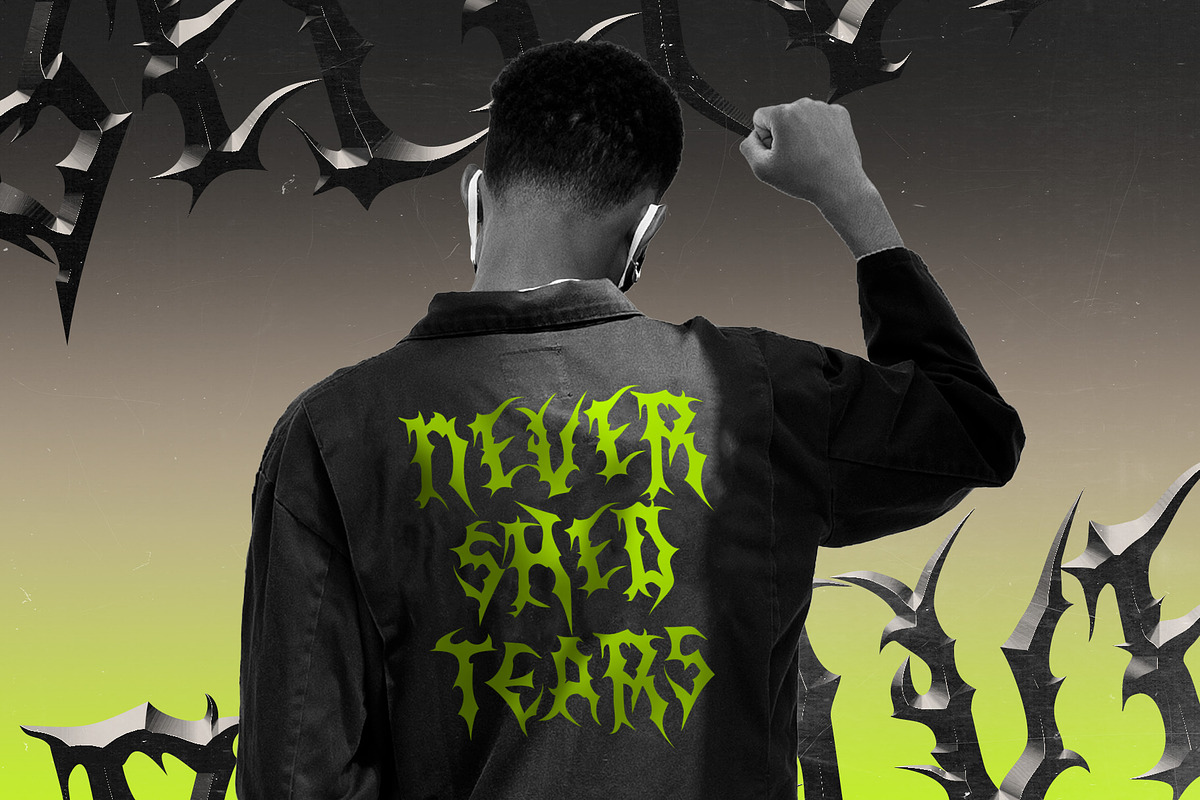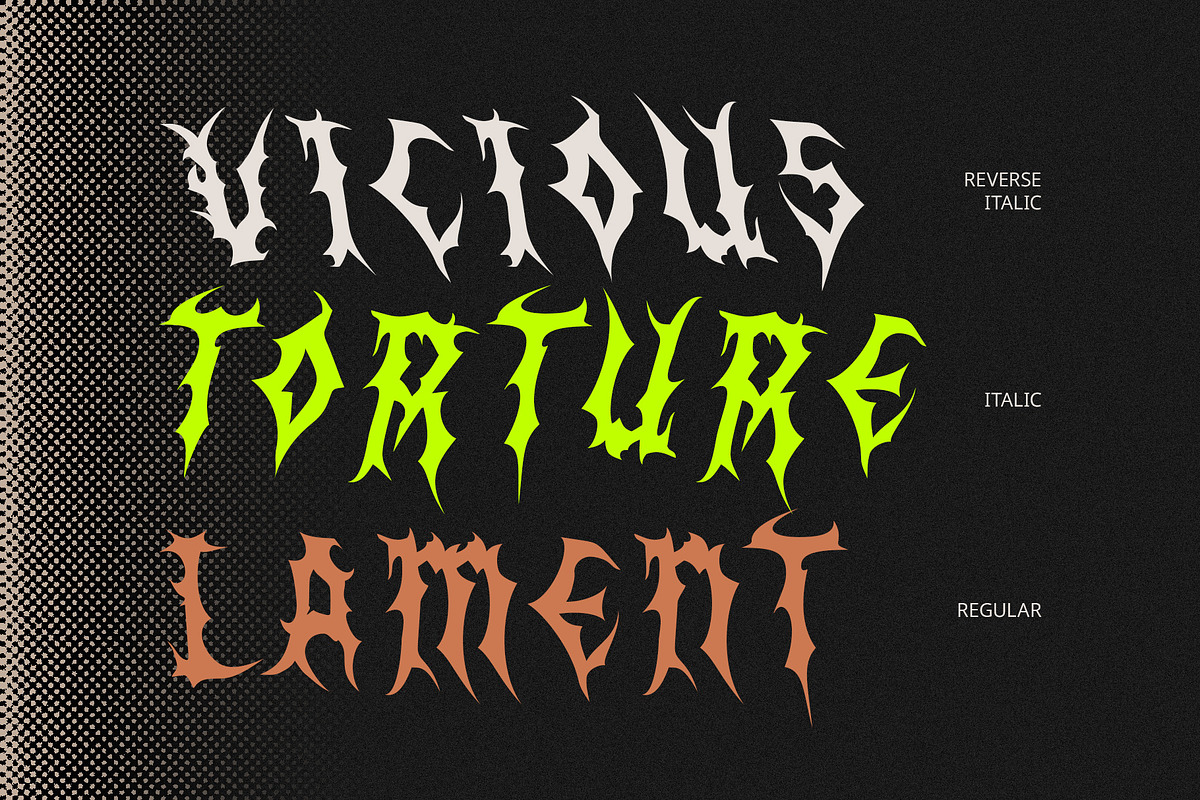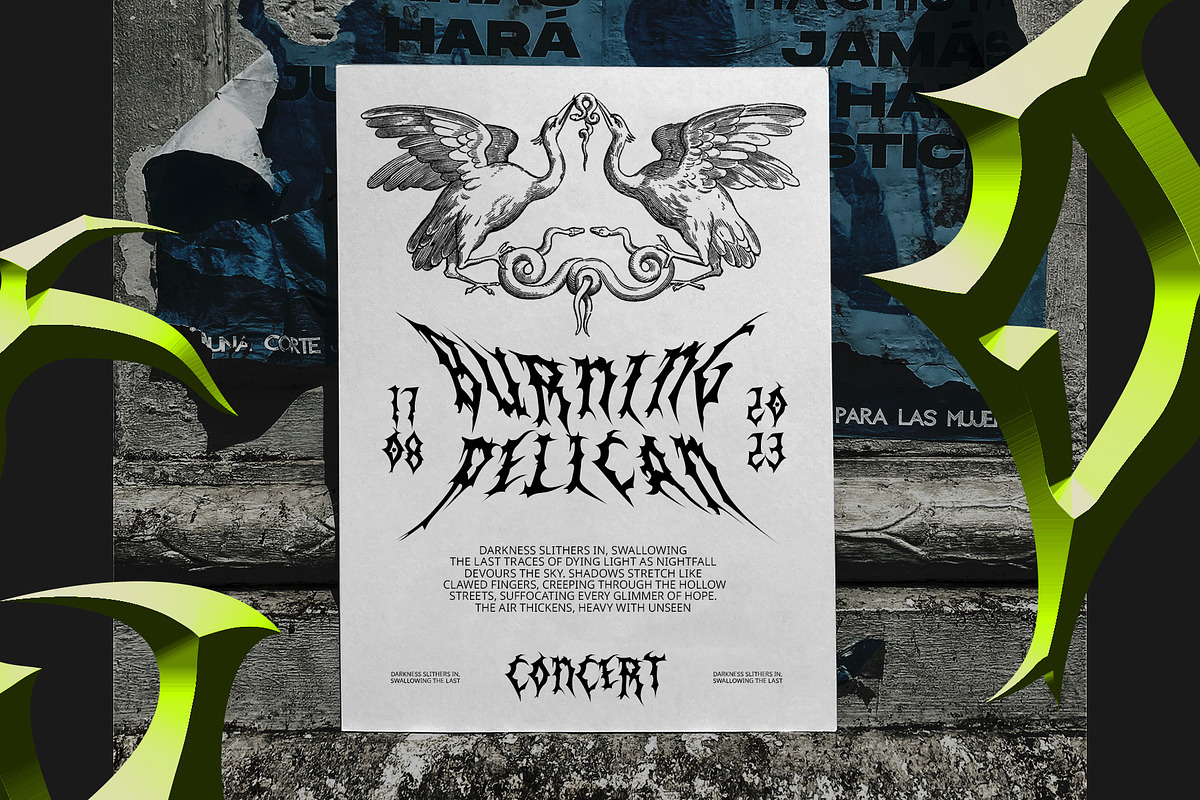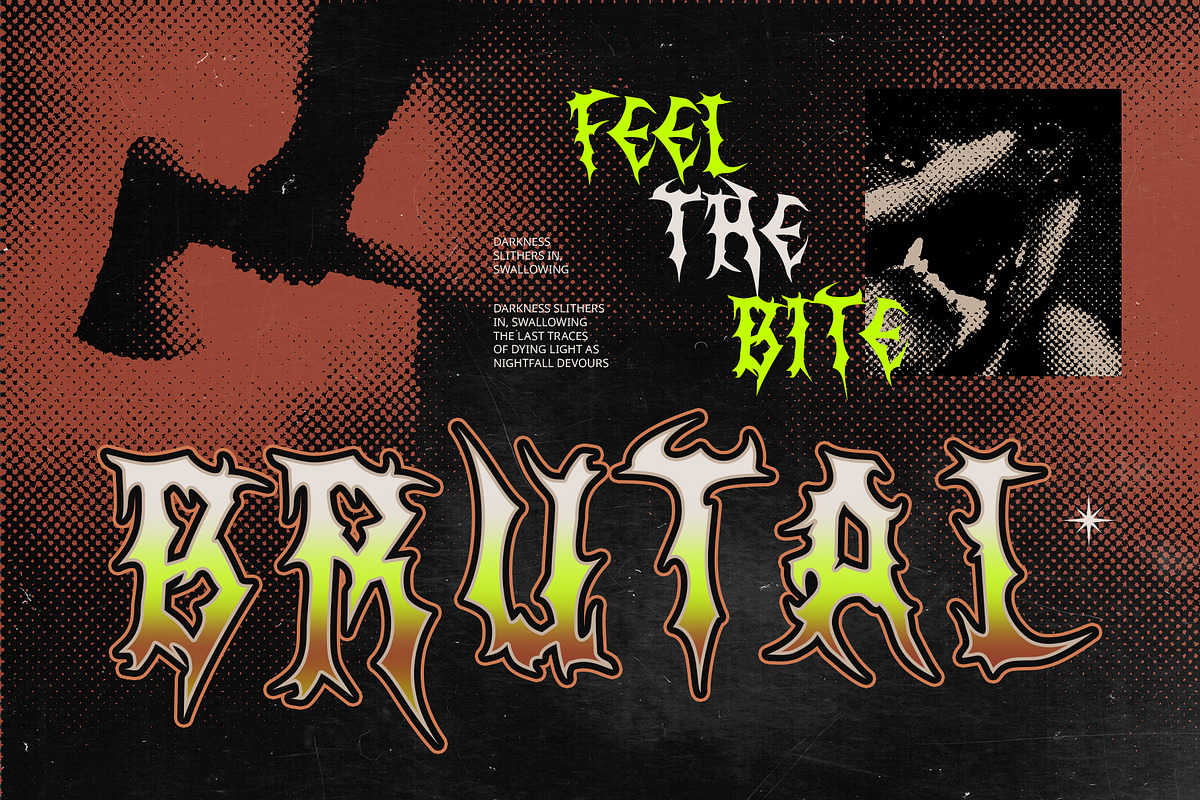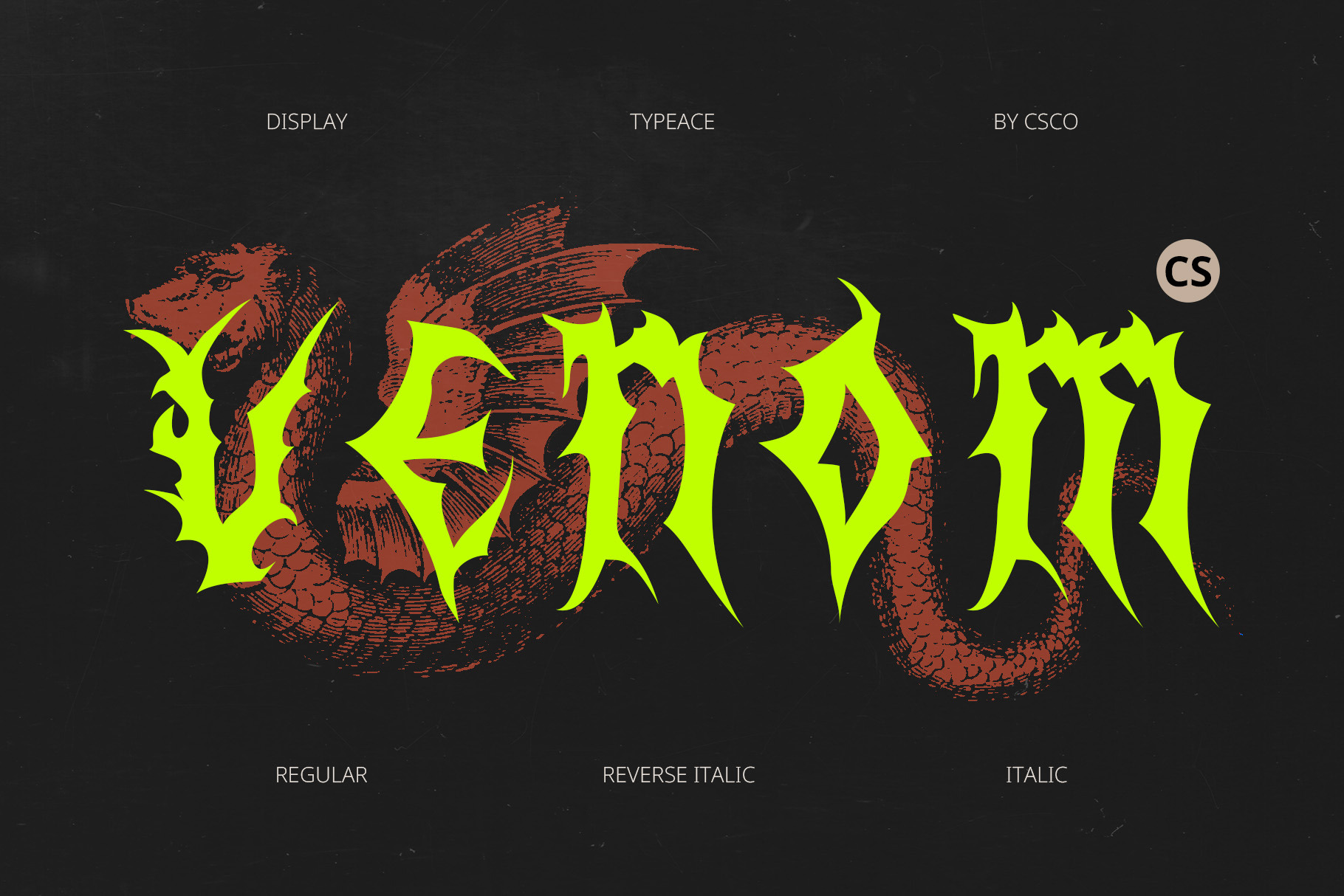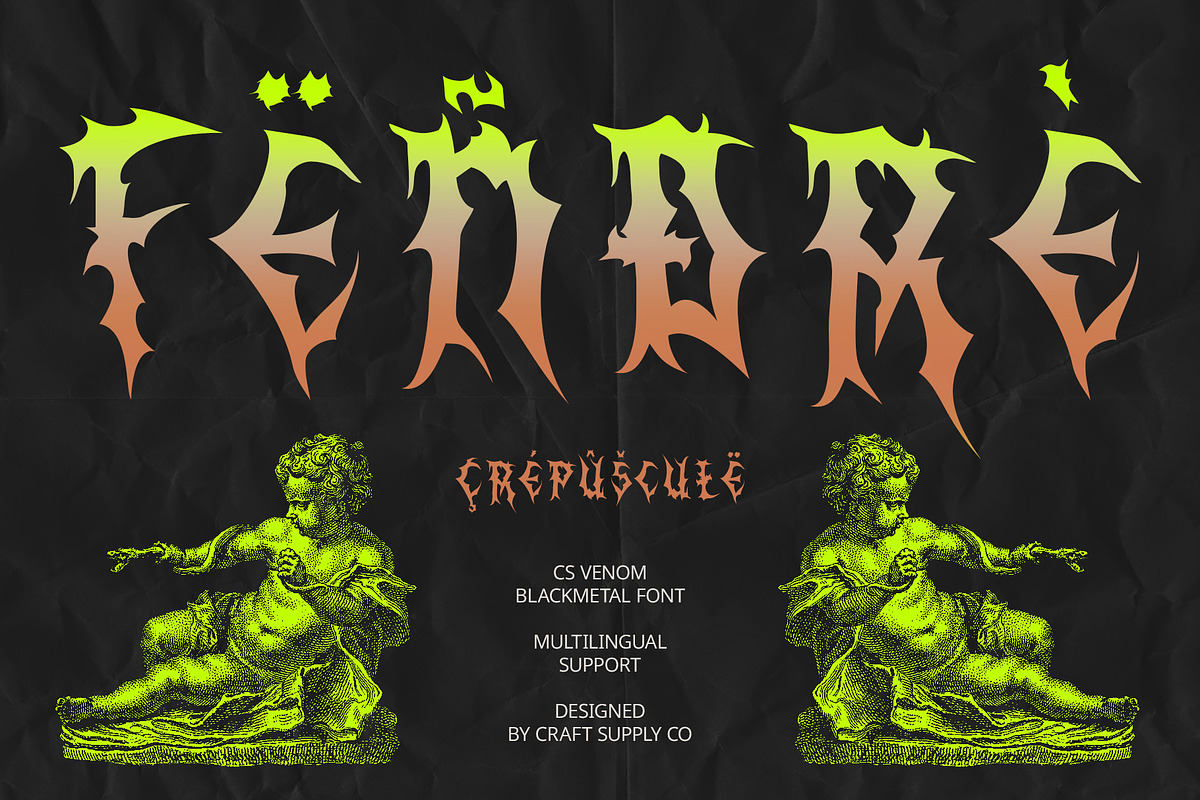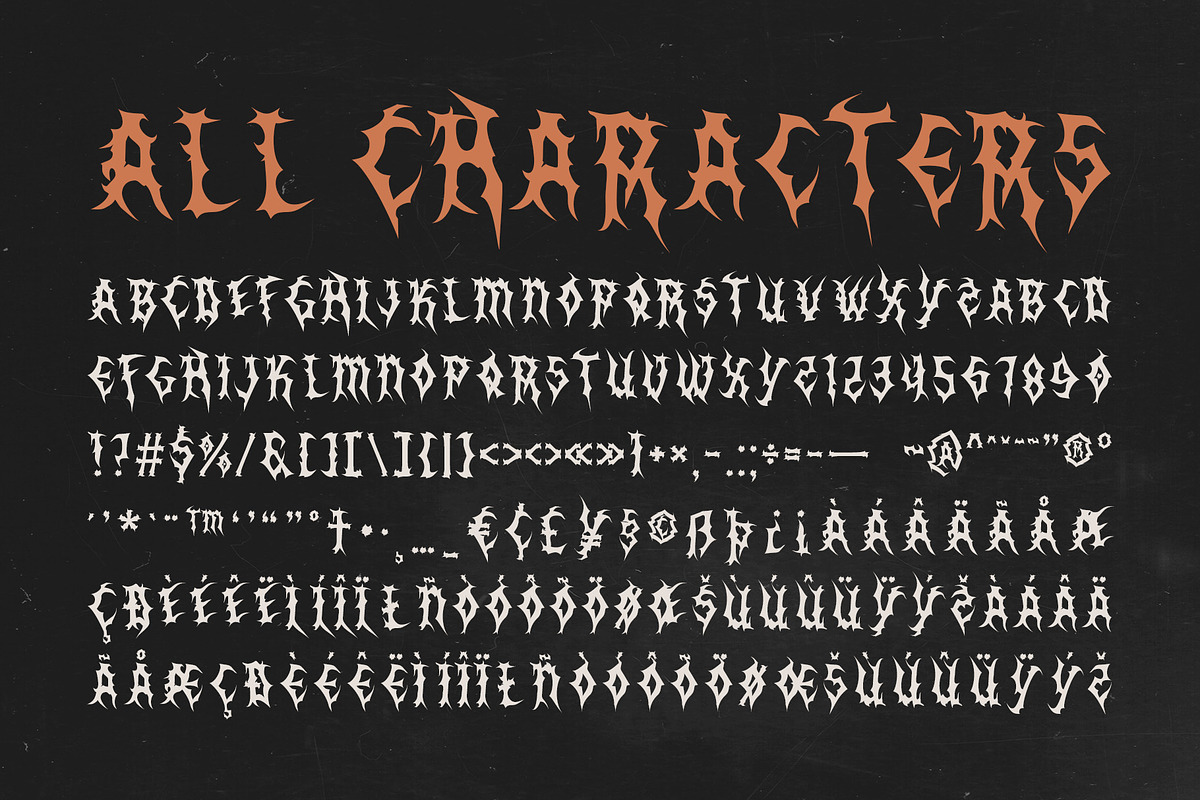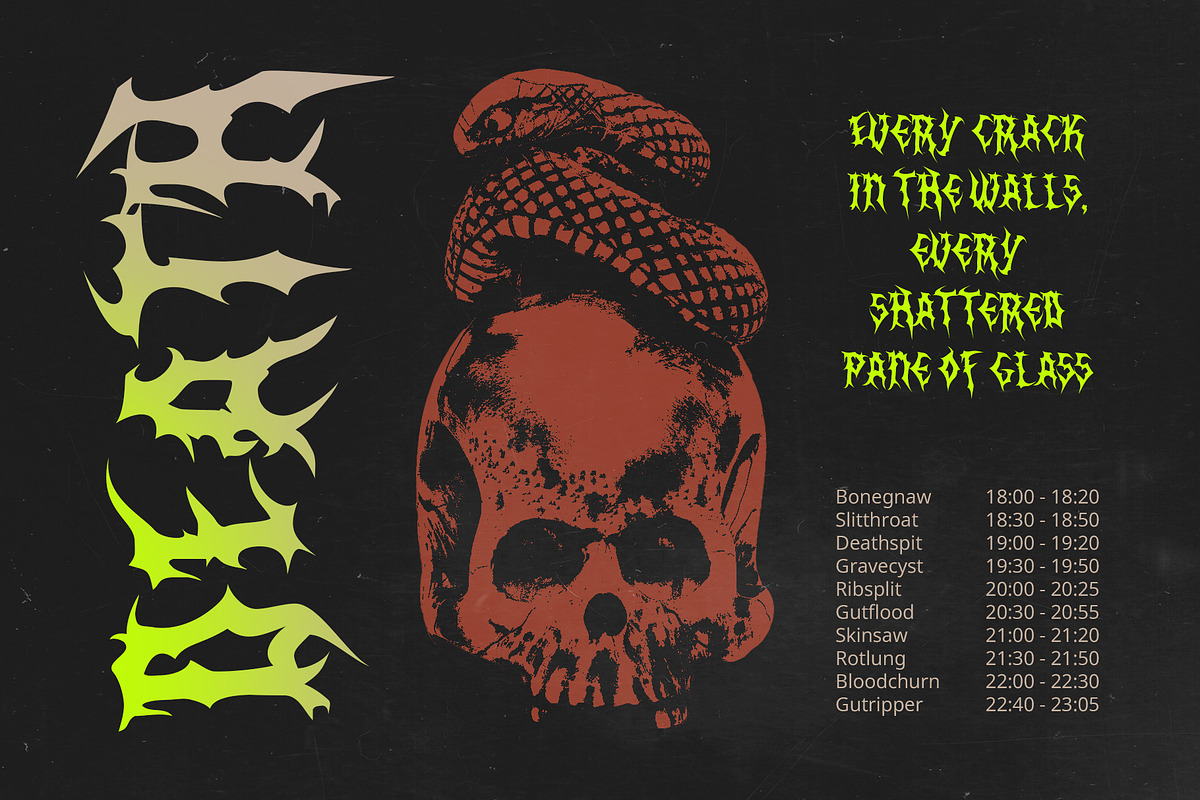
CS Venom – Black Metal Font
CS Venom – Black Metal Font: Raw, Chaotic, and Uncompromising
Dark and Aggressive Aesthetic CS Venom is a Black Metal display font that embodies the raw intensity and chaotic spirit of extreme metal. Its sharp, jagged letterforms and distorted strokes create a menacing and aggressive visual impact. Designed to reflect the underground culture of black metal music, this font exudes darkness, rebellion, and mysticism, making it perfect for extreme and gothic-inspired designs.
Intricate and Organic Letterforms Inspired by dripping ink, fractured metal, and twisted branches, CS Venom’s highly stylized and abstract shapes push the boundaries of legibility for a striking, immersive experience. Its chaotic, rough textures and brutal design add an eerie and mysterious presence, making it an ideal choice for projects that demand an intense, otherworldly atmosphere.
Perfect for Extreme Visuals CS Venom is best suited for band logos, album covers, horror posters, and dark fantasy artwork. Its unconventional and intricate details bring a brutal and ritualistic aesthetic to any design. Whether used for music branding, underground events, or gothic-inspired visuals, this font ensures a bold and unforgettable presence.
A Font That Commands Attention For designers seeking a menacing, rebellious, and intense typeface, CS Venom delivers an unapologetic impact. It’s more than just a font—it’s a statement of power, darkness, and untamed energy, designed to leave a lasting impression in the world of extreme art and music.